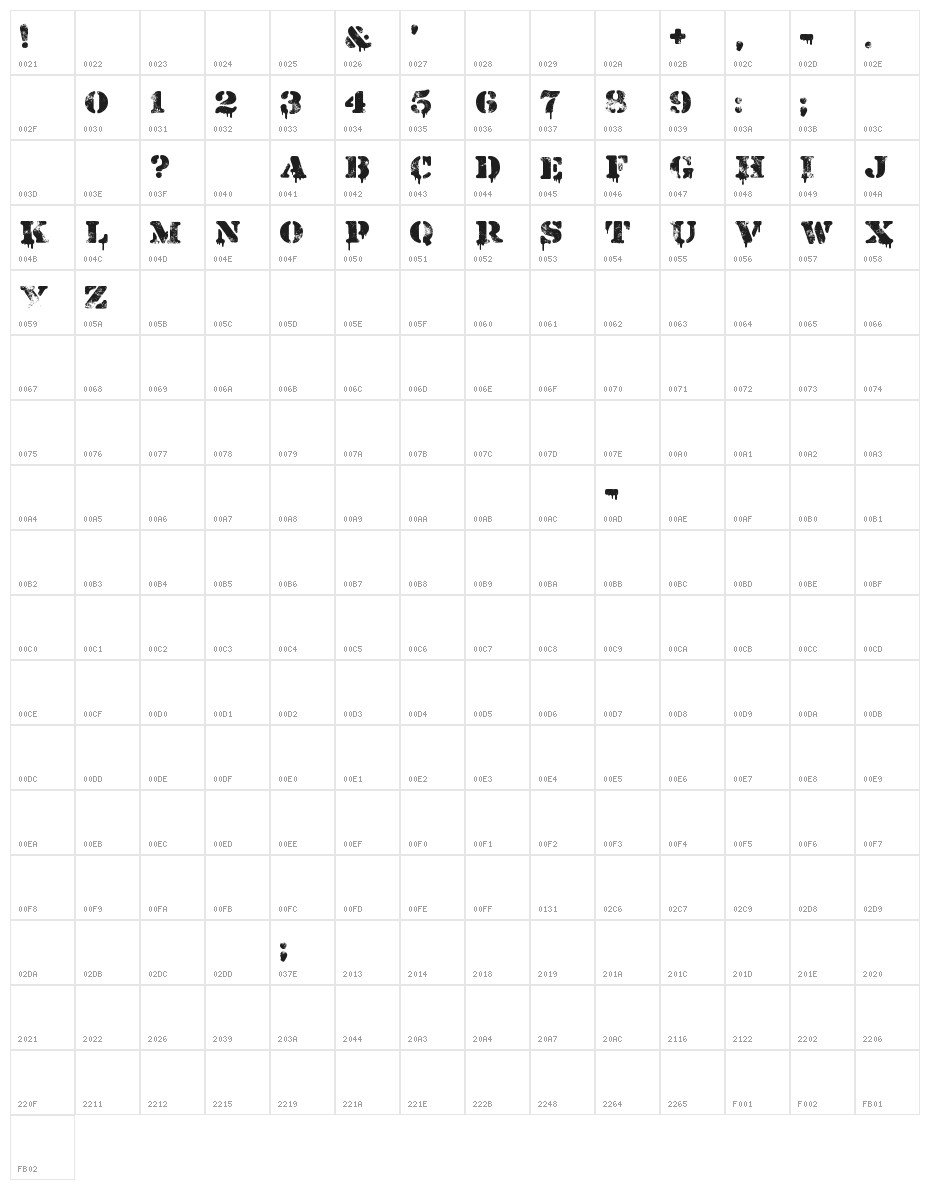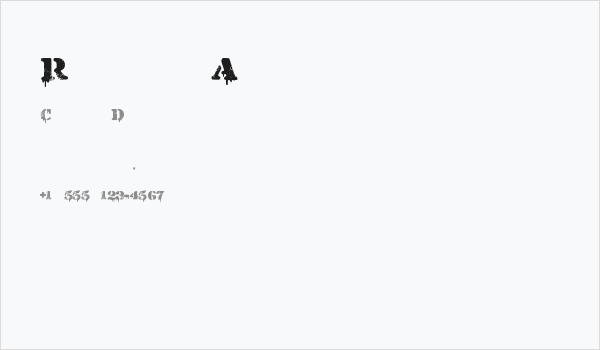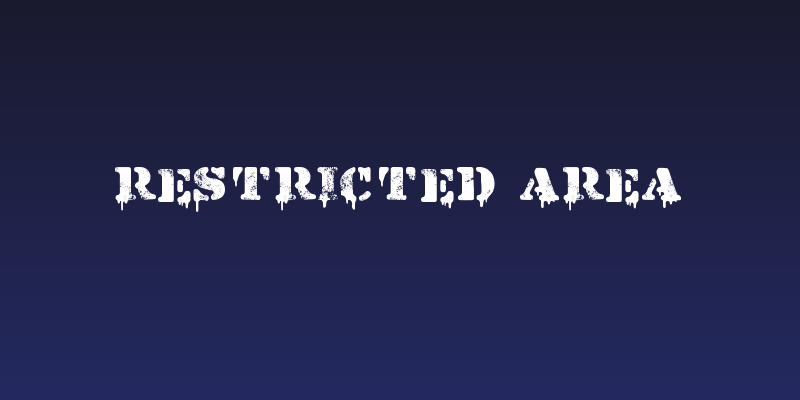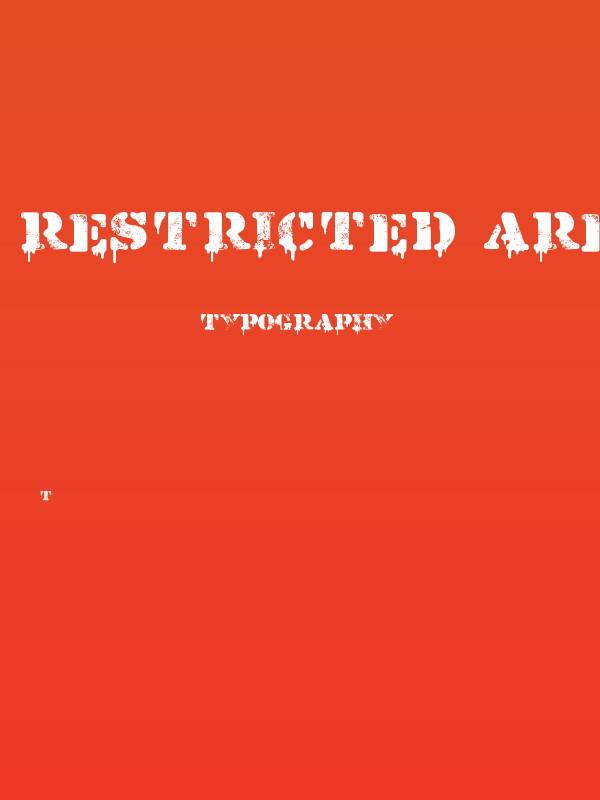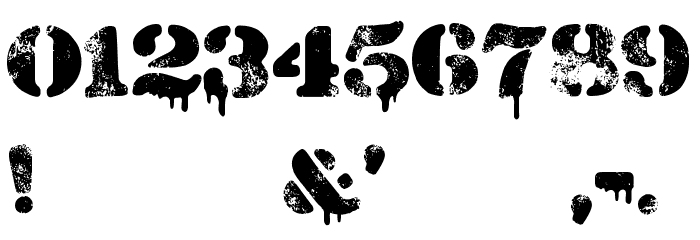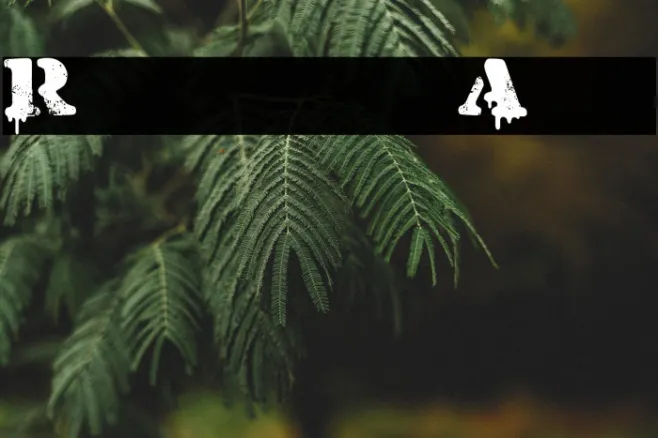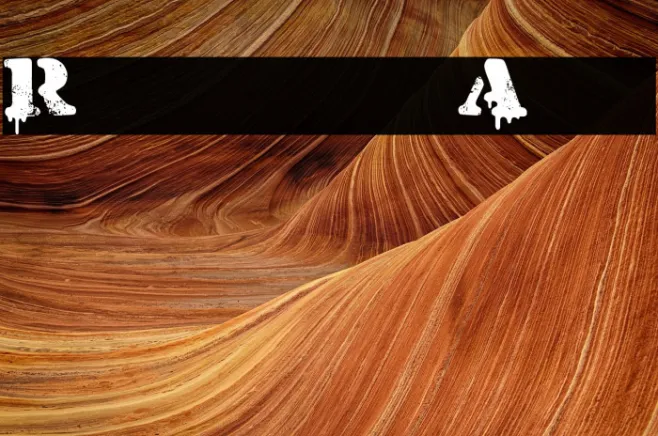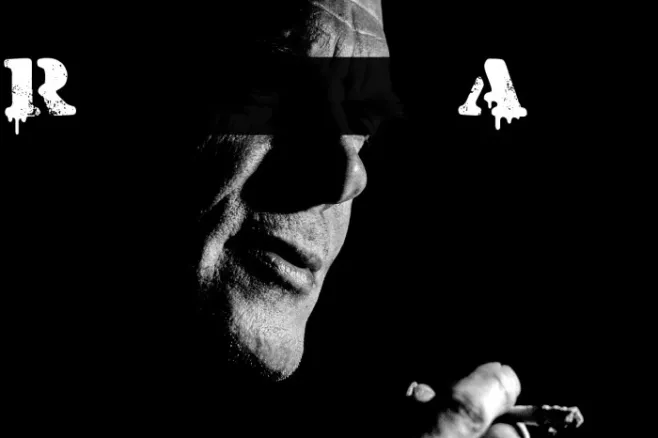
Restricted Area Font
Restricted Area Description
This font features a bold, distressed style with a grunge texture that gives it a worn and rugged appearance. The characters are uppercase and numerals, with a heavy emphasis on a stencil-like design. Each letter and number appears as if it has been weathered or eroded, creating a sense of age and industrial grit. The font's unique texture adds a dynamic and edgy feel, making it suitable for projects that require a strong, impactful visual statement. The irregular edges and rough surface contribute to its distinctive character, making it ideal for use in designs that aim to convey a sense of toughness or rebellion.
| Overall Style | Grunge, Industrial |
| Proposed Projects | Ideal for posters, album covers, urban-themed designs, and branding that requires a gritty, industrial look. |